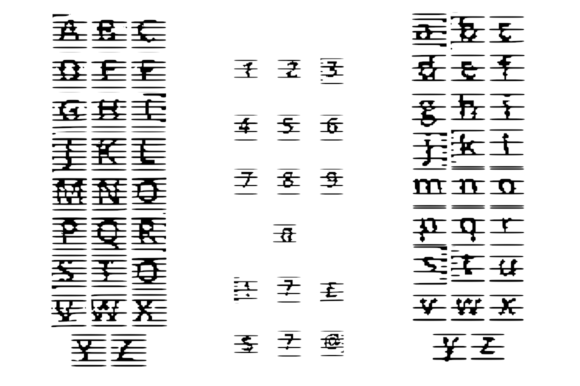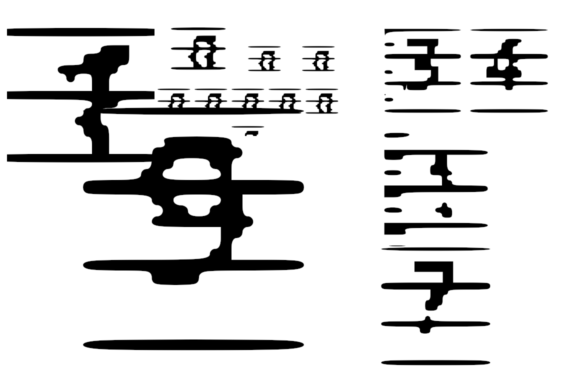
The Glitchy Font That’s Taking Over My Designs: A Deep Dive into Glitch Lines
I still remember the design project that made me fall in love with the Glitch Lines font. I was working on a futuristic-themed branding project for a tech startup, and I was struggling to find the perfect font that would capture the edgy, high-tech vibe they were looking for. That’s when I stumbled upon Glitch Lines, and it was love at first sight! 🤩 The distorted, glitchy feel of this font was exactly what I needed to bring my design to life.
An Honest Review: What I Love (and What I Don’t)
- Glitch Lines is available in both uppercase and lowercase versions, making it super versatile for various design projects.
- The font’s distorted feel is perfect for creating a futuristic or tech-inspired look that’s sure to grab attention.
- It’s a great choice for designers who want to add a bit of an edgy vibe to their work.
- The font is easy to read, even in smaller sizes, which is a bonus for designs that require a lot of text.
The Not-So-Good Stuff 🤔
- While Glitch Lines is a great font, it’s not suitable for body text or long-form content. It’s best used for headings, titles, or short phrases.
- Some characters, like the lowercase “l” and “i”, can be a bit tricky to distinguish from one another.
- The font’s glitchy effect can be a bit overpowering if not used thoughtfully. ⚠️
The Story Behind Glitch Lines: Designer Inspiration
Glitch Lines was created with the intention of capturing the essence of digital errors and glitches. The designer wanted to create a font that would evoke a sense of futuristic technology and innovation. By experimenting with distorted letterforms and glitchy effects, they created a truly unique font that’s perfect for designers who want to push the boundaries of creativity.
Q: What type of projects is Glitch Lines best suited for?
A: Glitch Lines is perfect for designs that require a futuristic, tech-inspired look, such as branding projects, posters, and social media graphics.
Q: Can I use Glitch Lines for body text?
A: While Glitch Lines is easy to read, it’s not recommended for body text or long-form content. It’s best used for headings, titles, or short phrases.